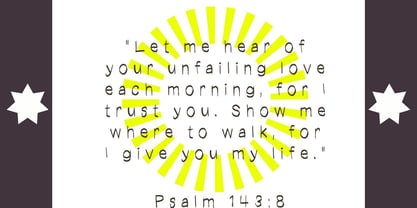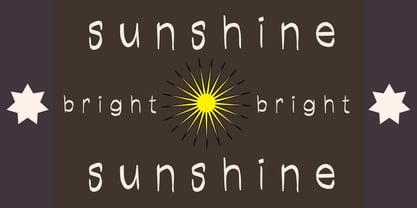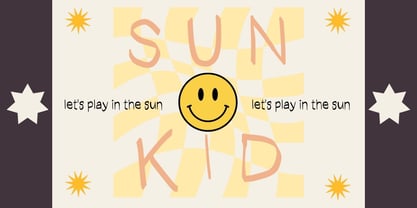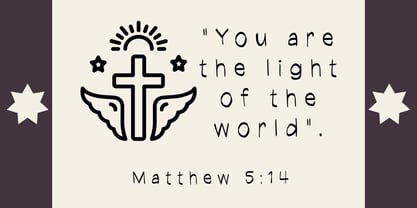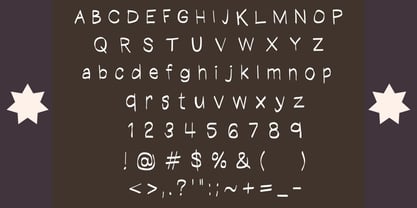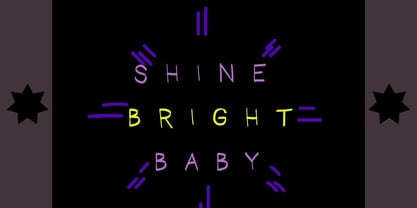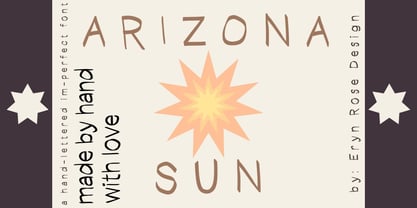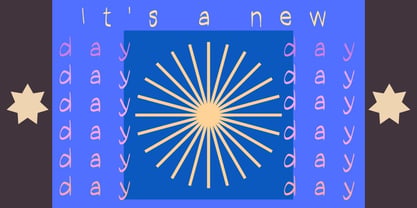
Arizona Sun
by Eryn Rose Design
The Arizona Sun Font Family was designed by Eryn Rose Tomlinson and published by Eryn Rose Design. Arizona Sun contains 1 styles. More about this family
Arizona Sun is a uniquely charming hand-lettered font that embodies a perfectly imperfect style. This simple, thin, and slightly wobbly 'hipster font' is ideal for a variety of creative applications. Its warm personality invites viewers to engage and explore further. Perfect for stationery design, logo creation, product branding, or eye-catching album covers, Arizona Sun adds a touch of character to any project. Enjoy the design process and celebrate the artistry of small, handmade creators.
Designers: Eryn Rose Tomlinson
Foundry: Eryn Rose Design
About Eryn Rose Design
Eryn Rose, a graduate of the Rhode Island School of Design, is a multifaceted artist specializing in illustration, graphic design, and type design. She skillfully blends modern and classic typography, leveraging her fine art and design expertise. Each piece of her typography is unique, ensuring that it cannot be replicated or found elsewhere. Eryn's typography is artfully crafted, infusing warmth into her designs that only a human touch can provide. Her work resonates across various industries, including editorial, tech, and retail, setting her apart in the competitive market with her signature style and design philosophy.